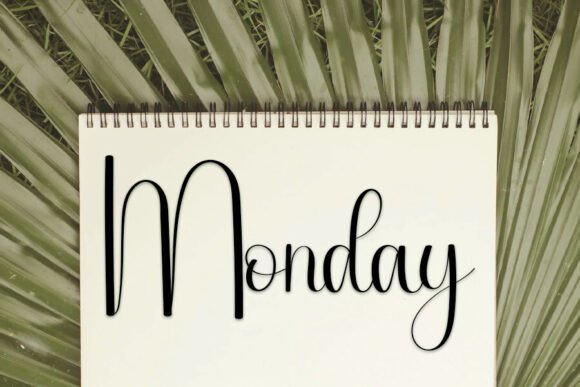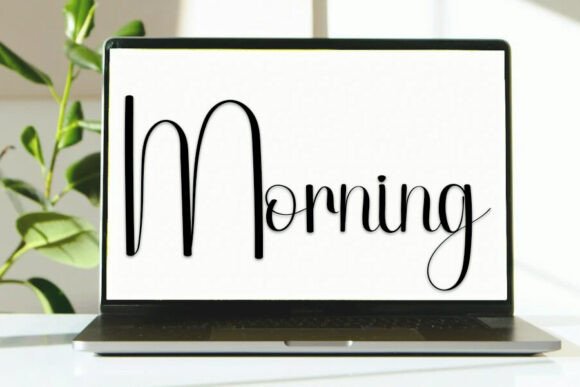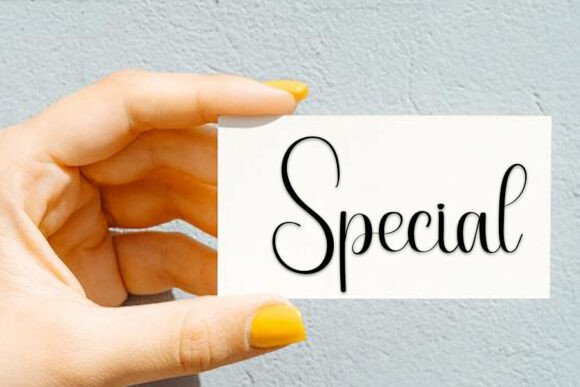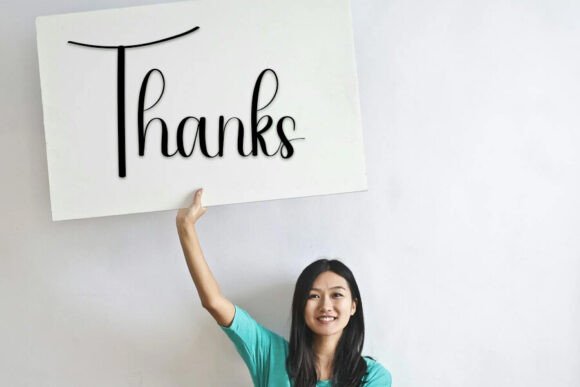
Introducing February Font: Elevate Your Designs with Sophistication and Elegance
In the world of design, typography plays a crucial role in conveying the tone and aesthetic of a project. A font can make or break the visual appeal of a design, and that’s where the February font comes in – a cutting-edge, exquisite font that whispers sophistication and elegance. In this article, we’ll explore the features and benefits of the February font, and how it can amplify your design potential.
A Font that Embodies Finesse and Versatility
The February font is designed to cater to a wide range of design needs, from enhancing the appeal of YouTube banners to transforming cover logo mockups. Its unique blend of simplicity and distinctiveness makes it an ideal choice for designers and crafters looking to add a touch of elegance to their work. Whether you’re creating wedding invitations, ID cards, or flyers, the February font is sure to make your designs stand out.
Unleash Your Creativity with February Font
One of the most significant advantages of the February font is its versatility. It’s a font that can be used in various design contexts, from digital to print. The font’s clean lines, precise curves, and balanced proportions make it easy to read and visually appealing. Whether you’re designing for a business or personal project, the February font is sure to bring a level of sophistication and refinement to your work.
Make a Style Statement with February Font
Using the February font is more than just a style statement; it becomes a design journey that paves the way for your business’s growth and expansion. The font’s unique aesthetic can help you establish a strong brand identity and differentiate yourself from competitors. With the February font, you can create designs that are not only visually appealing but also memorable and impactful.
Design Possibilities with February Font
The February font offers endless design possibilities, making it an excellent addition to any designer’s toolkit. Here are some design ideas to get you started:
- Wedding Invitations: Add a touch of elegance and sophistication to your wedding invitations with the February font.
- ID Cards: Make your ID cards more compelling and professional with the February font.
- Flyers: Breathe life into your flyer designs with the February font’s unique blend of simplicity and distinctiveness.
- YouTube Banners: Enhance the appeal of your YouTube banners with the February font’s clean lines and precise curves.
- Cover Logo Mockups: Transform your cover logo mockups with the February font’s balanced proportions and elegant aesthetic.
Why Choose February Font?
So, why choose the February font over other fonts? Here are some compelling reasons:
- Unique Aesthetic: The February font offers a unique blend of simplicity and distinctiveness that sets it apart from other fonts.
- Versatility: The font’s versatility makes it suitable for various design contexts, from digital to print.
- Elegance: The February font embodies elegance and sophistication, making it perfect for designs that require a touch of refinement.
- Easy to Read: The font’s clean lines and precise curves make it easy to read, even at small sizes.
In conclusion, the February font is a cutting-edge, exquisite font that can elevate your designs to new heights. Its unique blend of simplicity and distinctiveness, combined with its versatility and elegance, make it an excellent choice for designers and crafters. Whether you’re looking to create wedding invitations, ID cards, or flyers, the February font is sure to make your designs stand out. So, unleash the magic of the February font and take your designs to the next level.